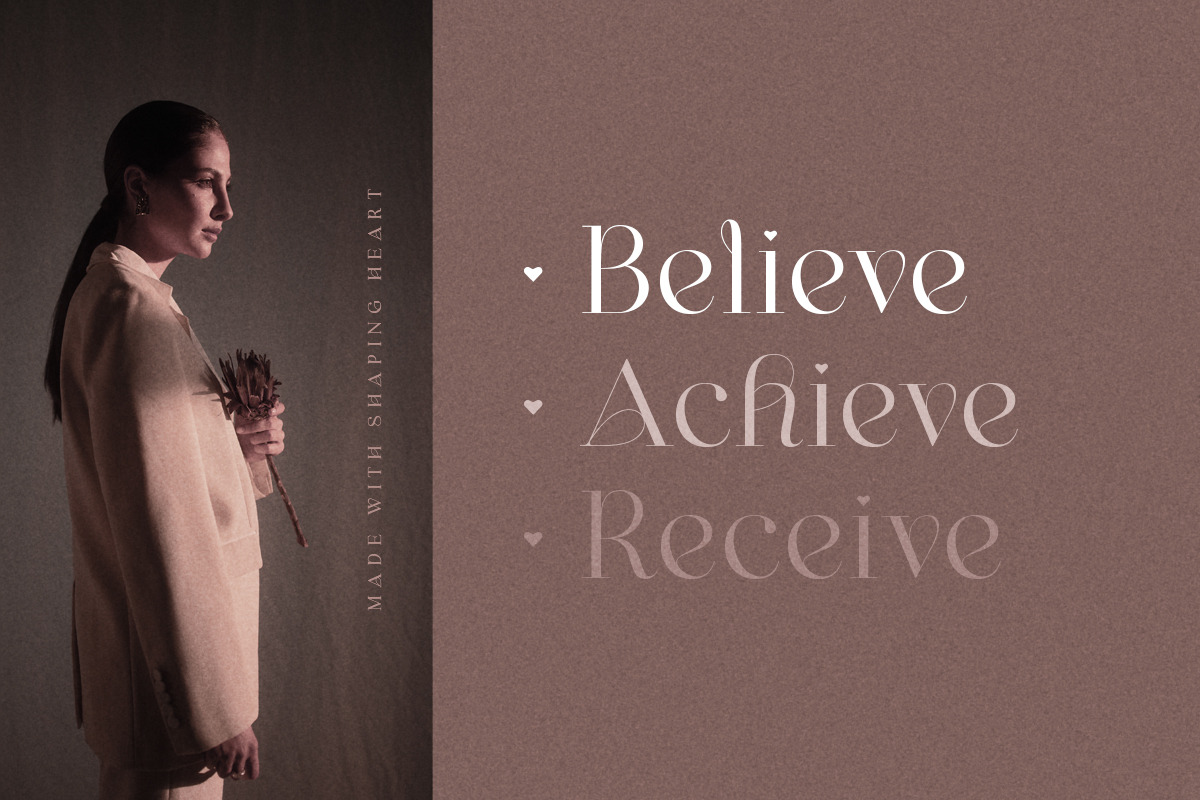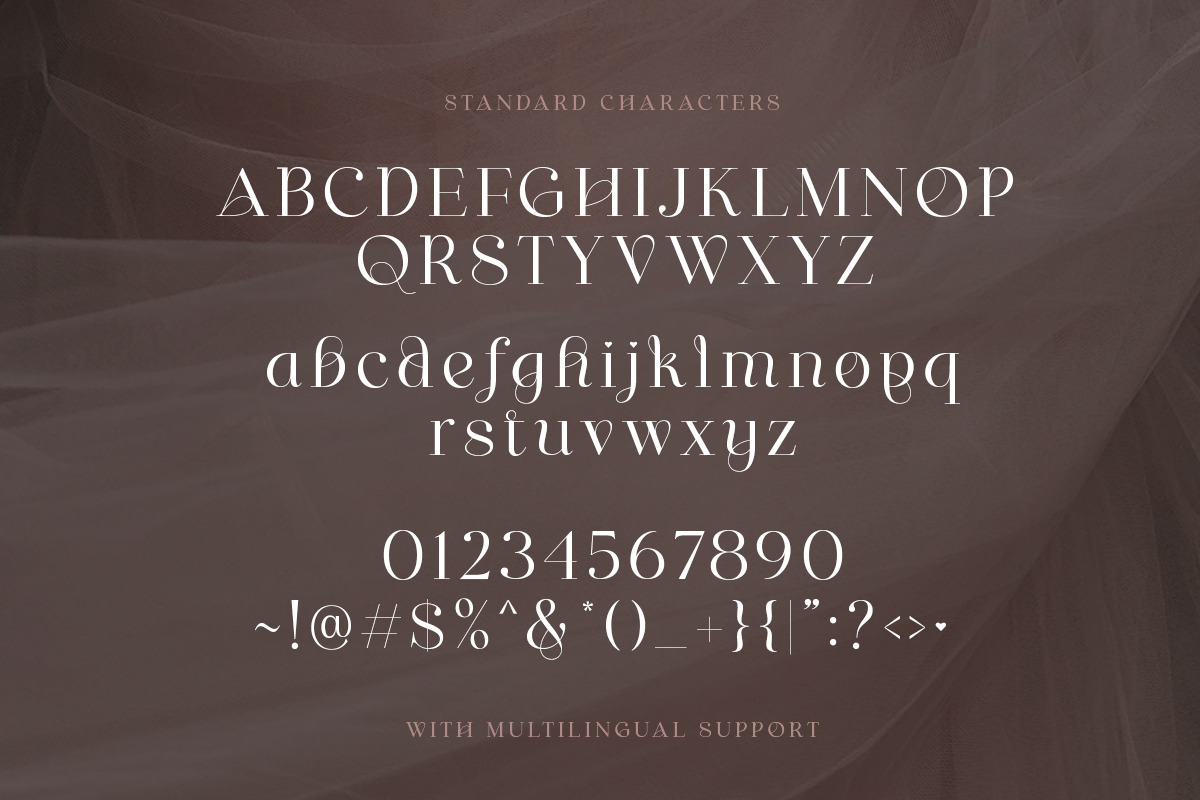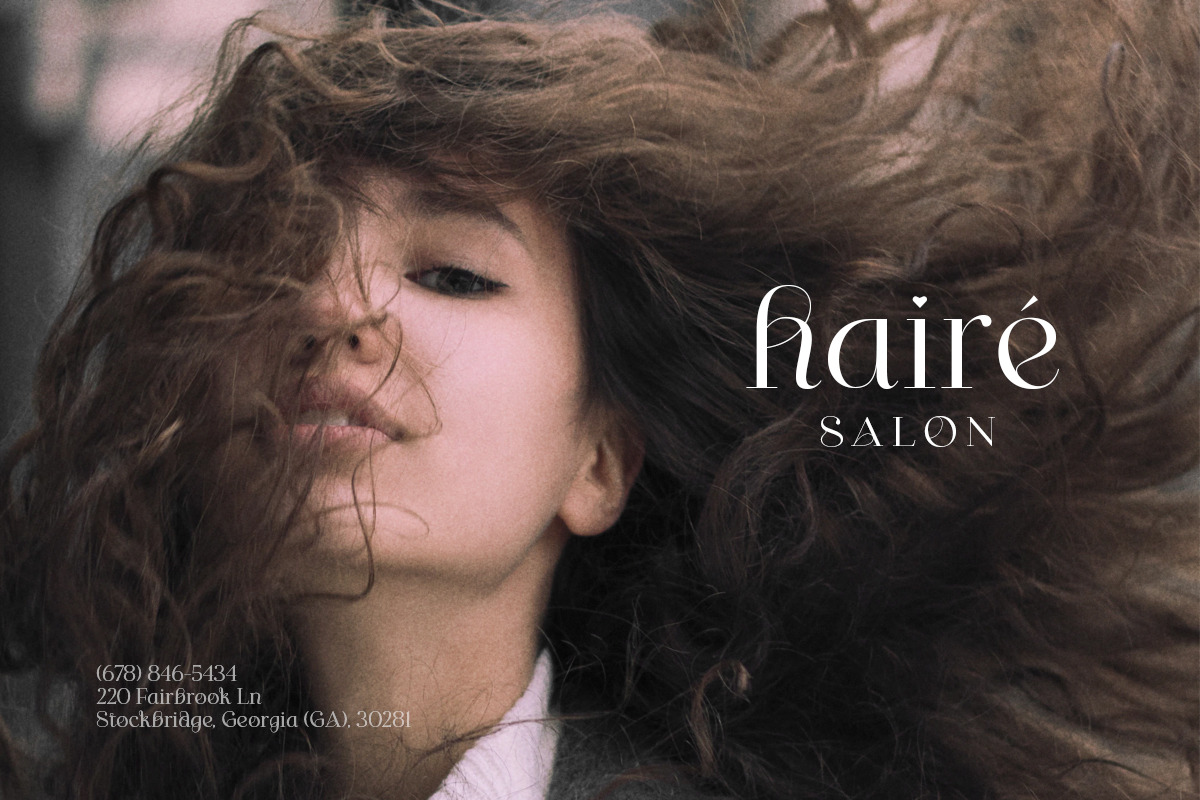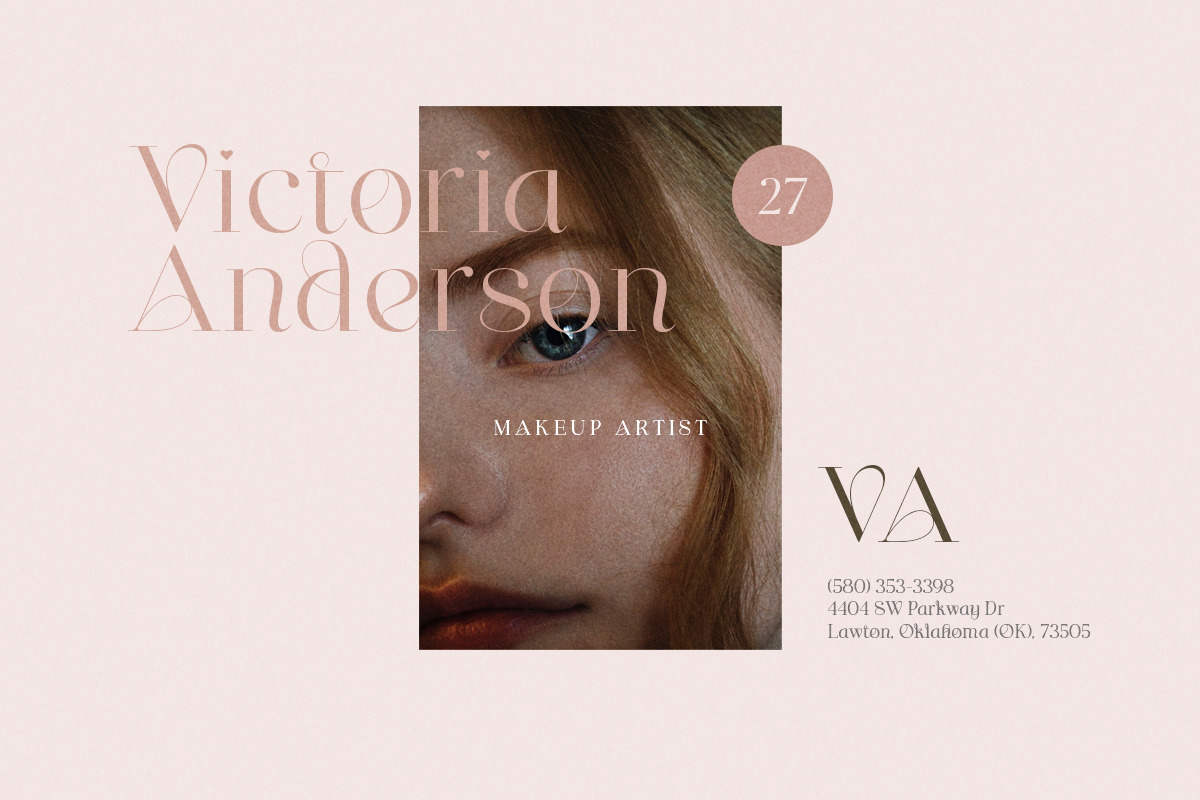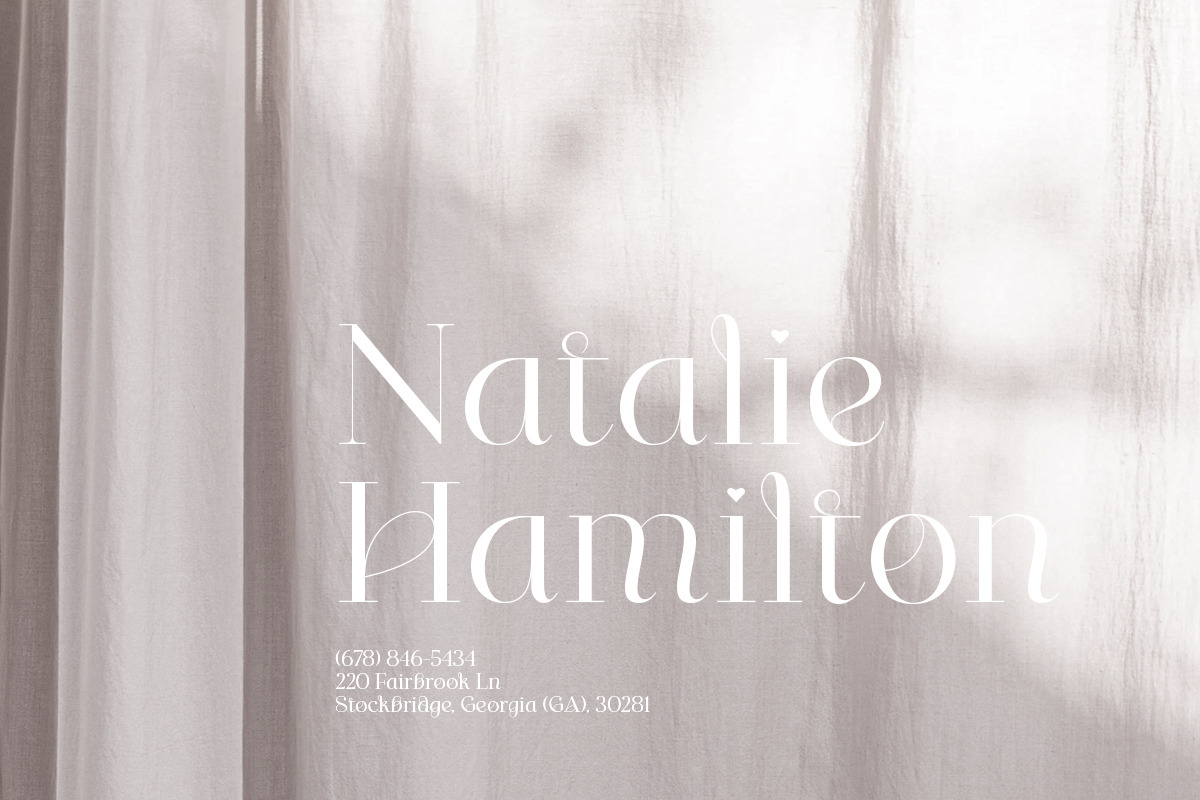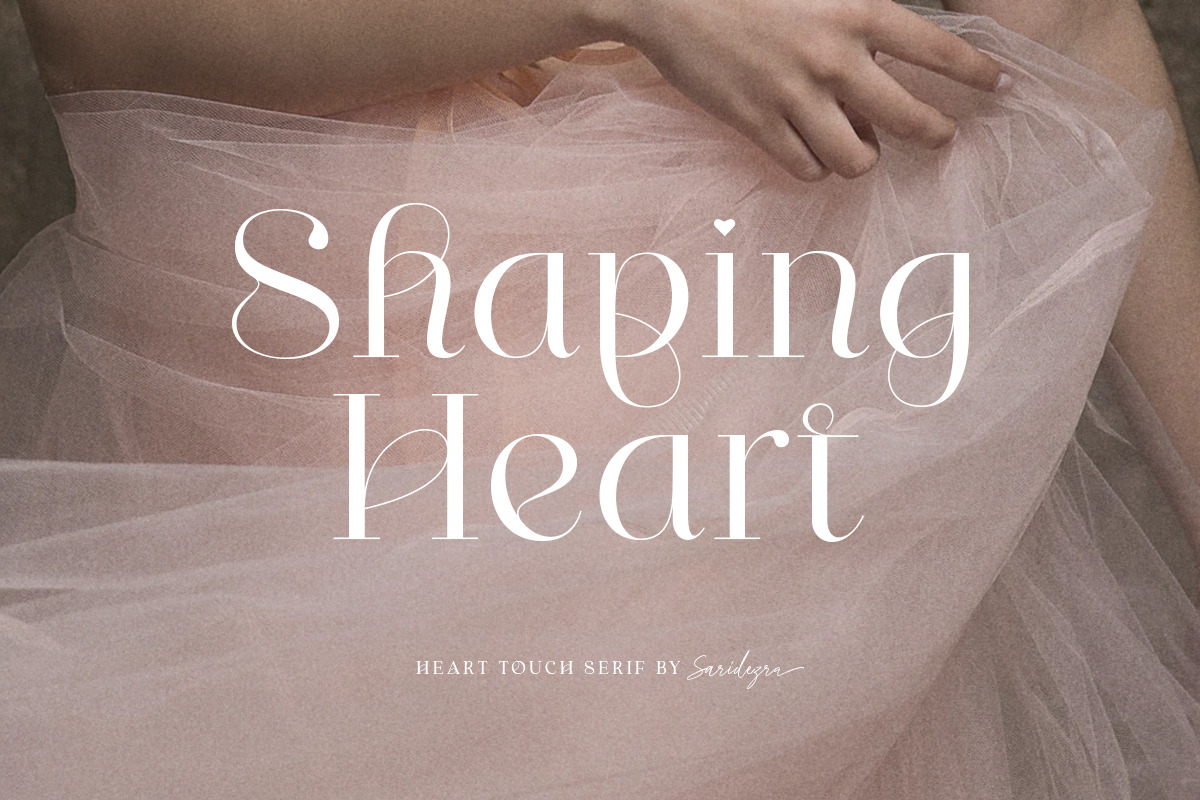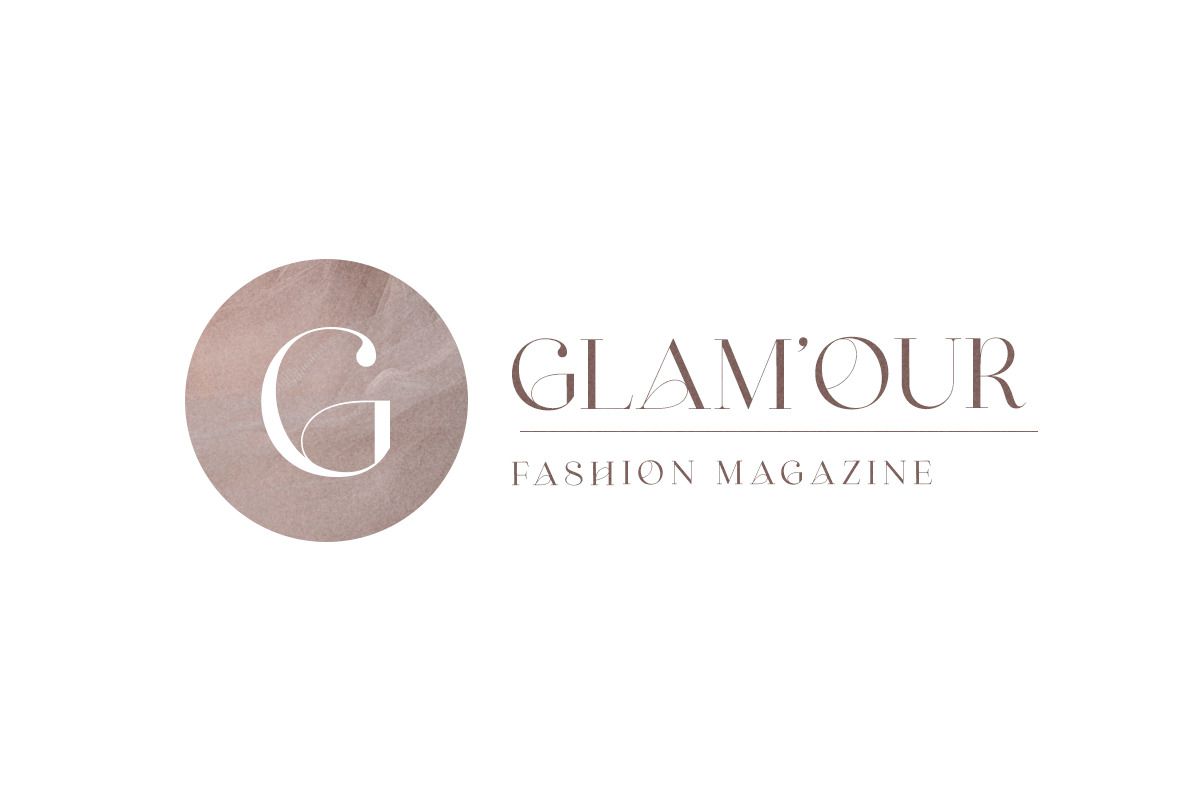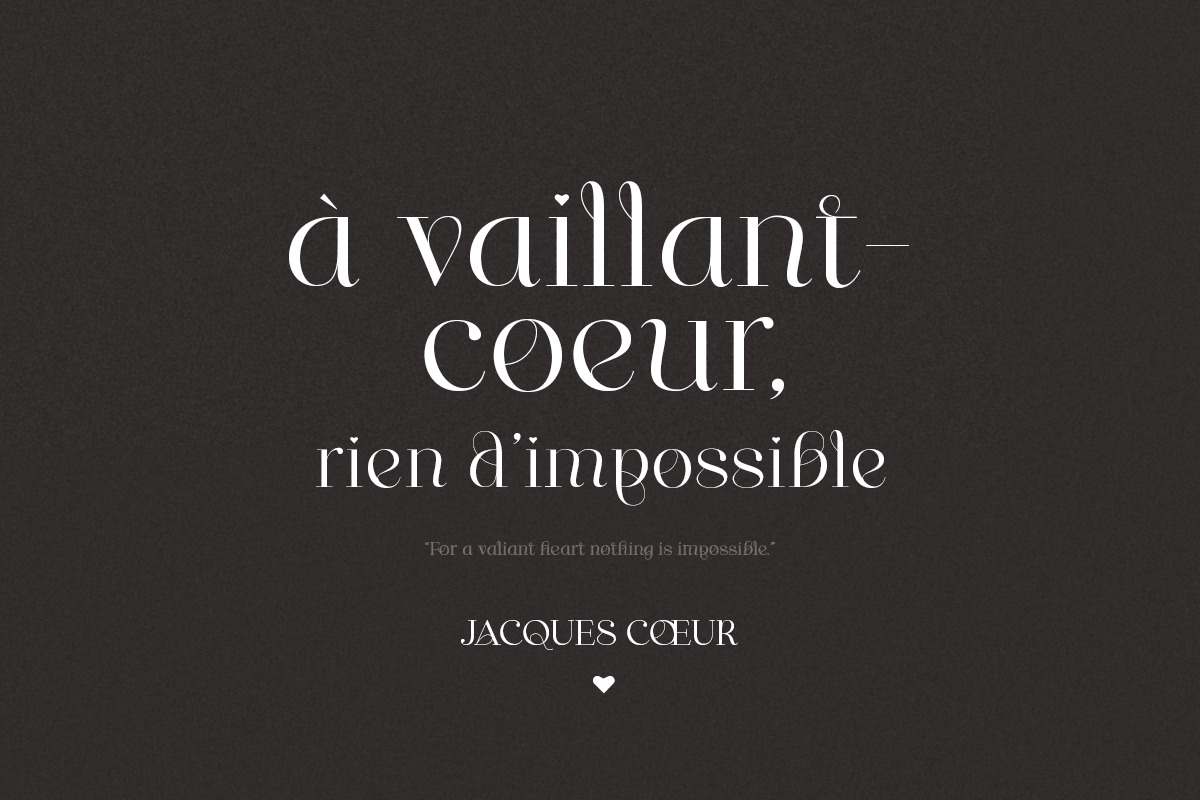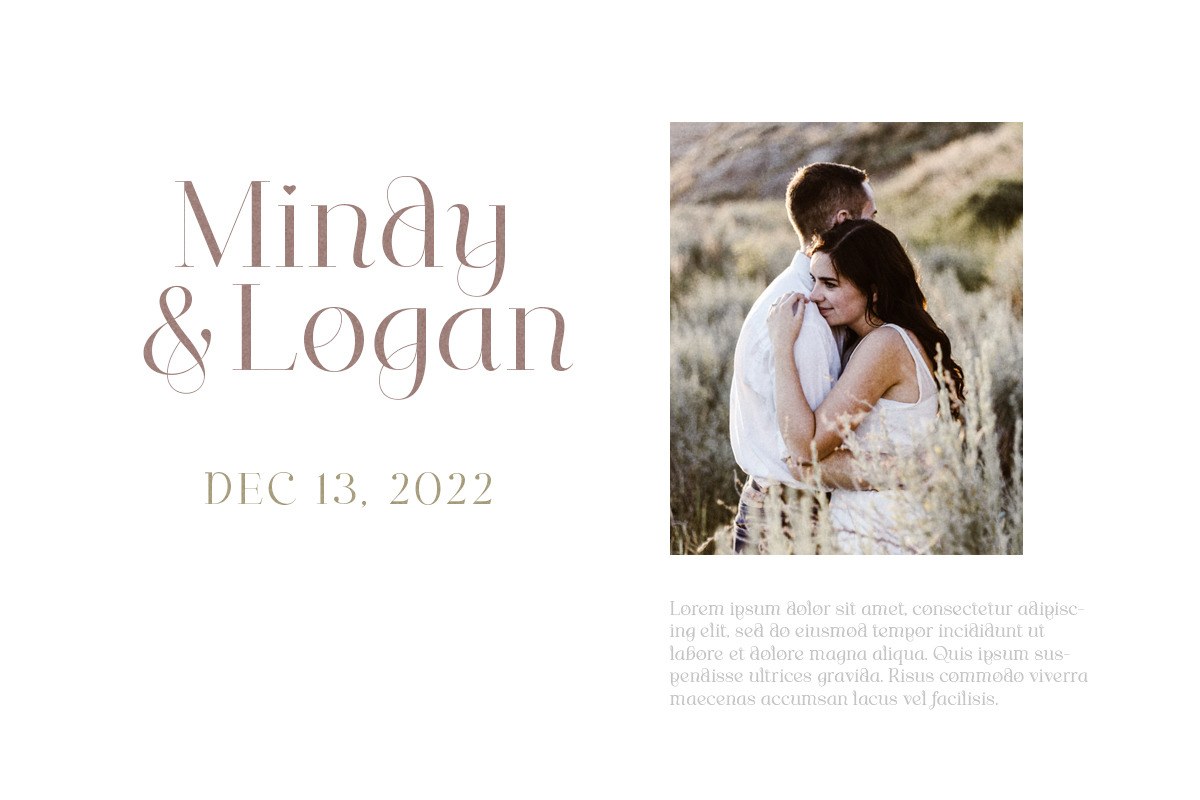
Shaping Heart - Lovely Serif
Introducing, Shaping Heart - a lovely serif with heart touch!
Shaping Heart is an elegant and modern serif with a thoughtful details that will make your presentation, logo or your wedding invitations more stunning and lovely! You can use this font for several purposes such as a wedding invitations or even your own branding! This fonts support Multi Language and already PUA Encoded! Also comes with beautifully crafted details that make this font more stylish.